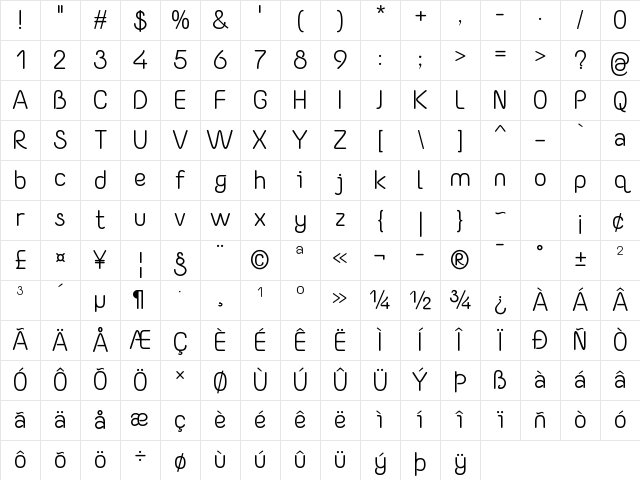
Yaahowu Regular Free Font
Yaahowu Regular
Designer: Situjuh Nazara
Design Context for Yaahowu
Yaahowu is a composed and adaptable typeface that performs quietly and consistently across a wide range of design contexts.